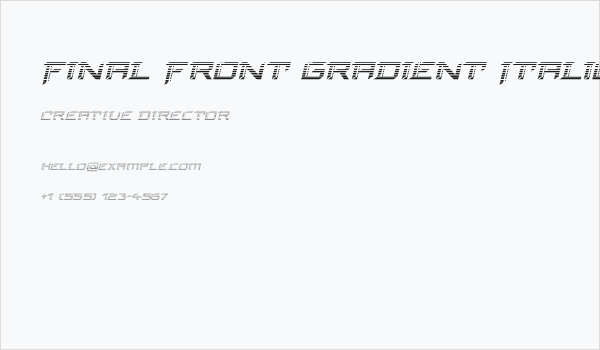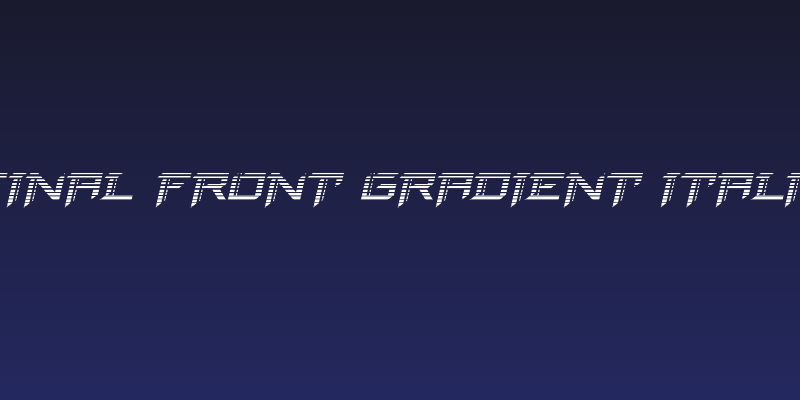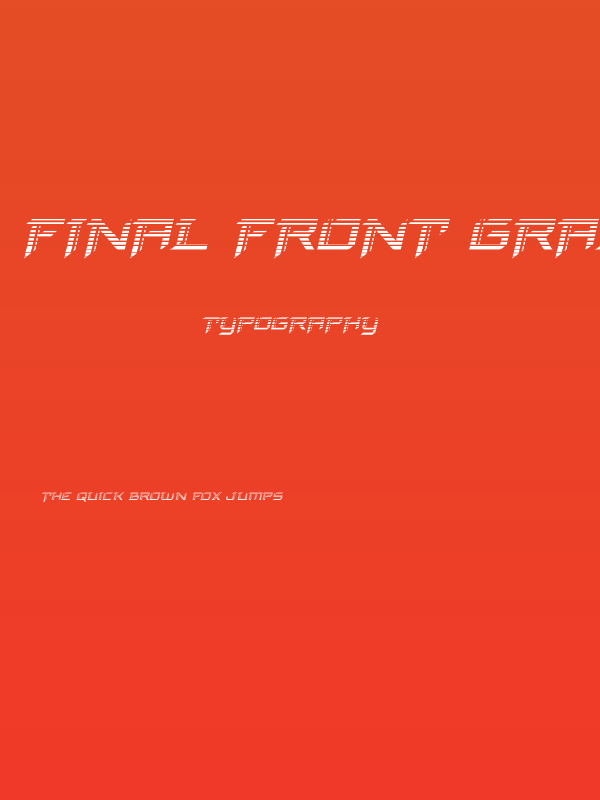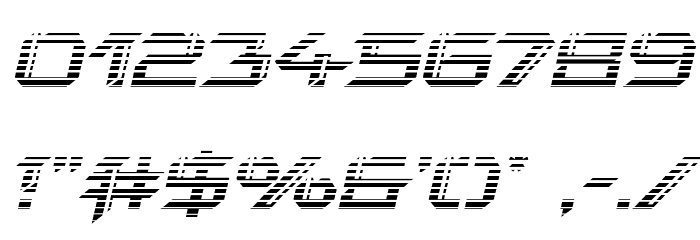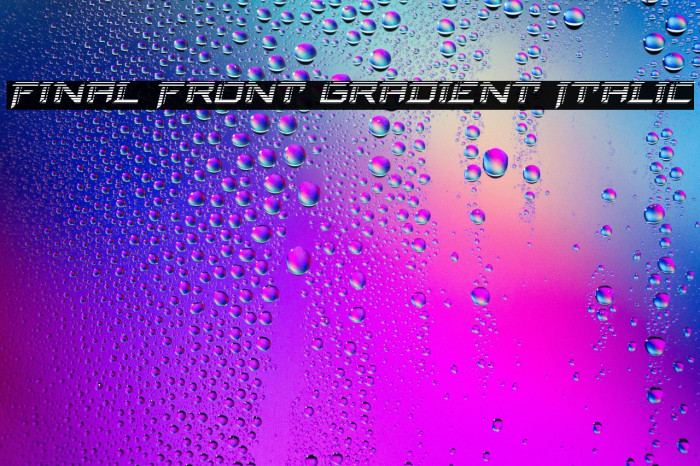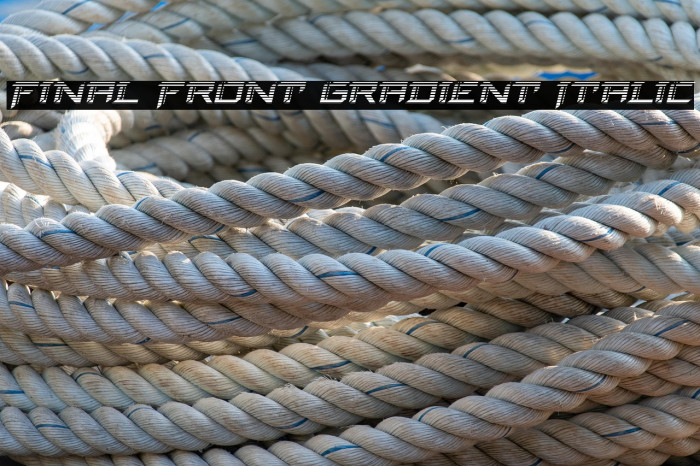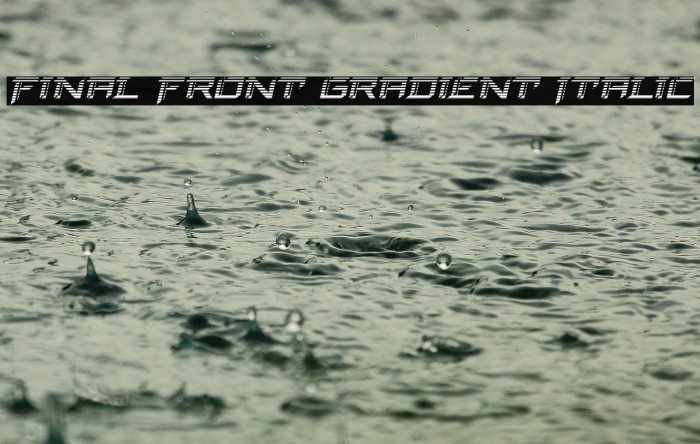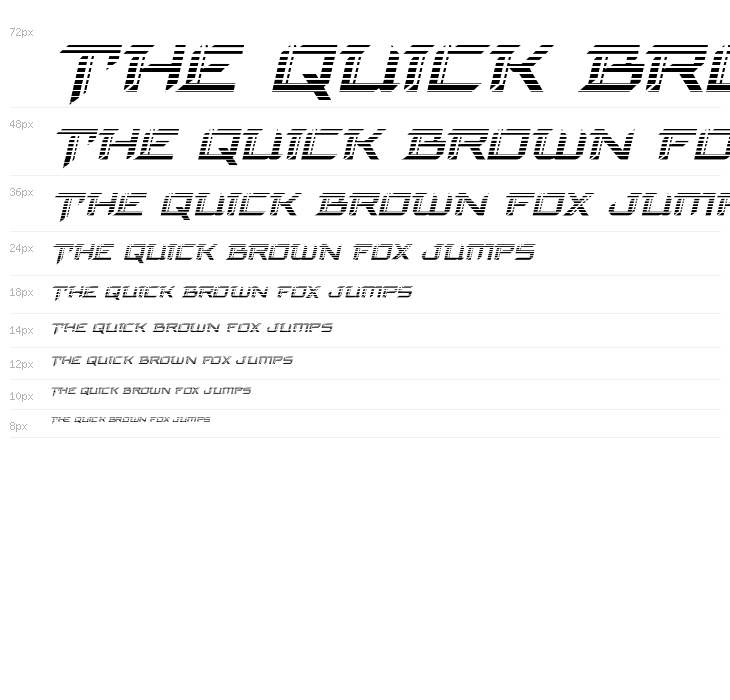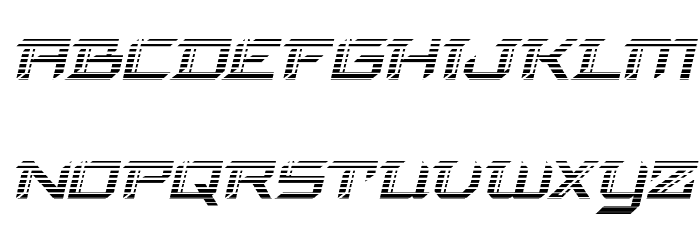
Final Front Gradient Italic Font
Final Front Gradient Italic Description
This font features a dynamic and futuristic design with a strong emphasis on angular lines and a gradient effect that gives it a sense of motion. The characters are italicized, adding to the forward-leaning appearance. Each letter is composed of multiple parallel lines, creating a striped pattern that enhances the modern and edgy look. The font is highly stylized, making it ideal for projects that require a bold and eye-catching aesthetic. It maintains a consistent stroke width throughout, contributing to a uniform and cohesive appearance. The spacing between characters is relatively tight, which complements the condensed nature of the font. Overall, this font is perfect for designs that aim to convey speed, technology, or innovation.
| Proposed Projects | Ideal for technology branding, sci-fi posters, video game titles, and futuristic event flyers. |